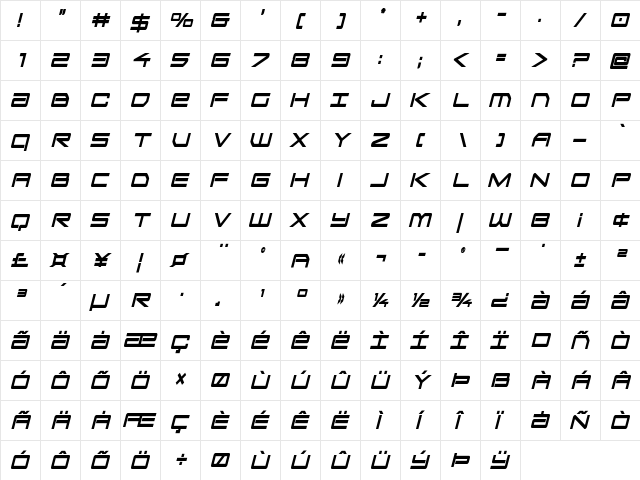
Sky Ridge Bold Extra-Cond Ital Regular
Design Context for Sky Ridge Bold Extra-Cond Ital Typeface
Sky Ridge Bold Extra-Cond Ital is a composed and adaptable typeface that performs quietly and consistently across a wide range of design contexts. Its bold stroke weight gives it real presence on the page. Its narrow stance lets it pack a punch even in space-constrained designs.